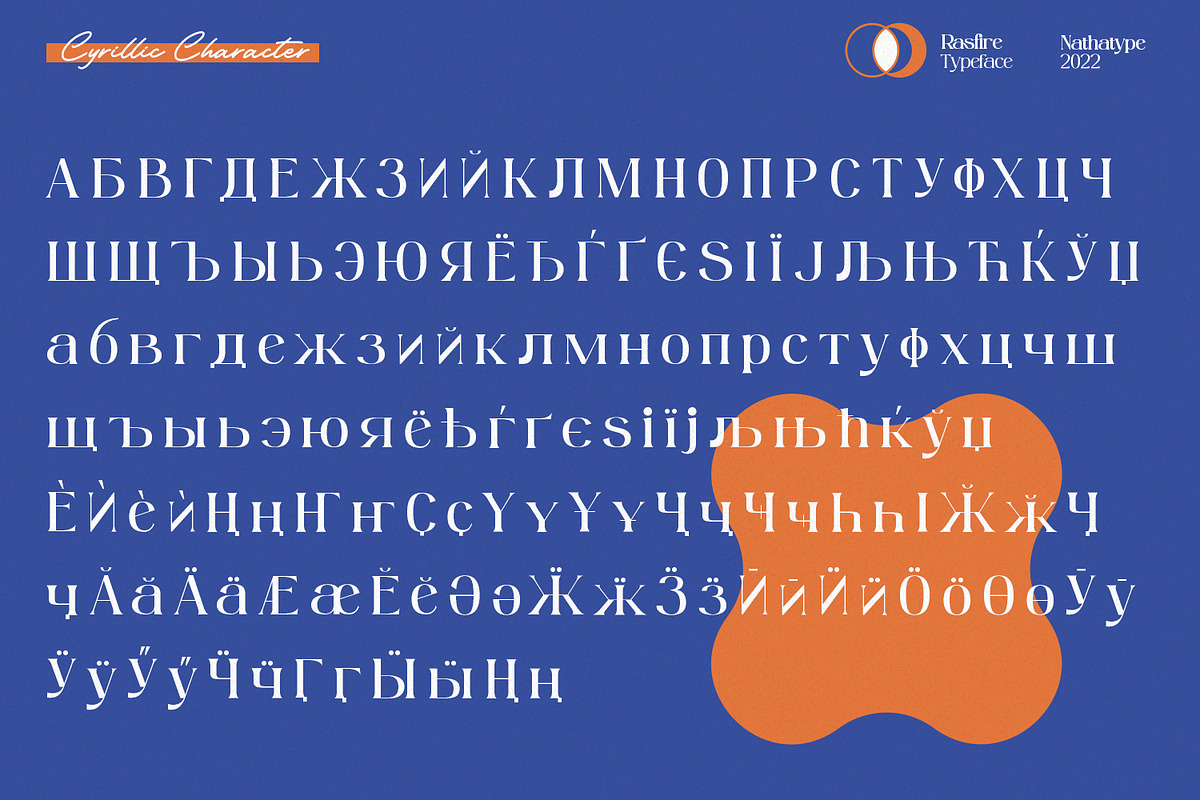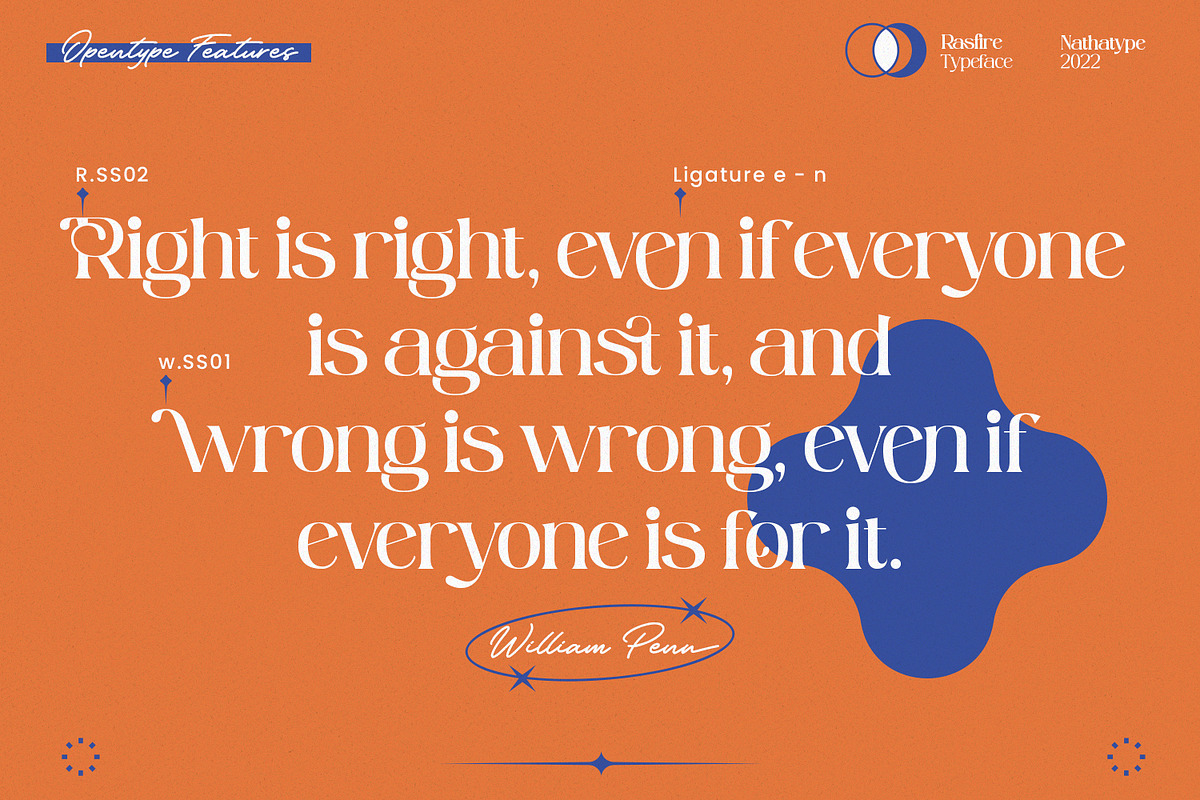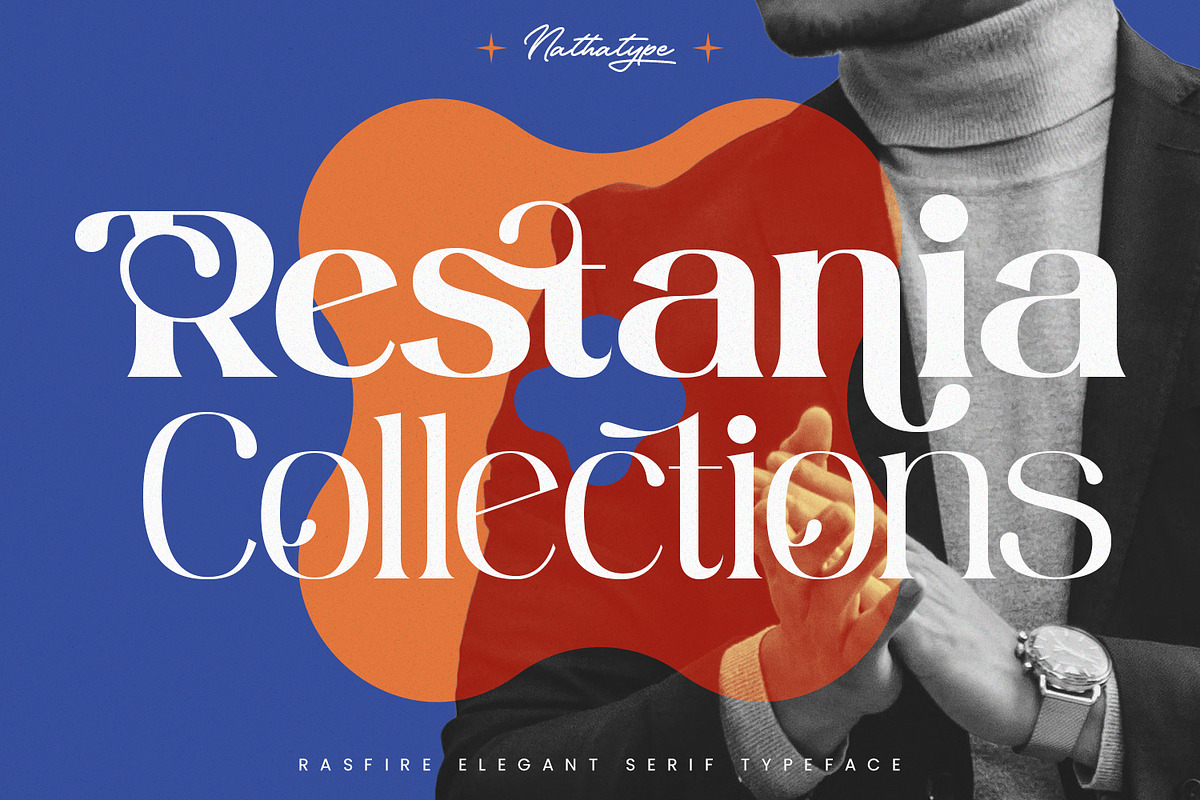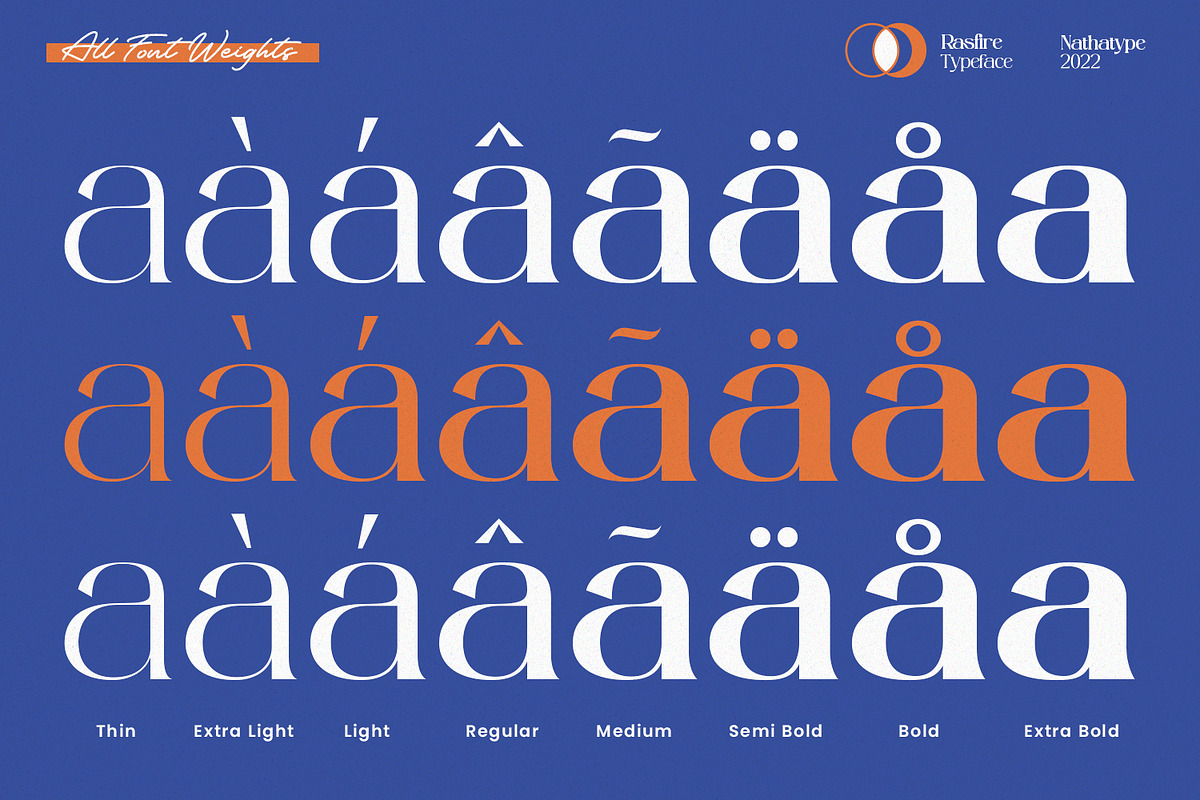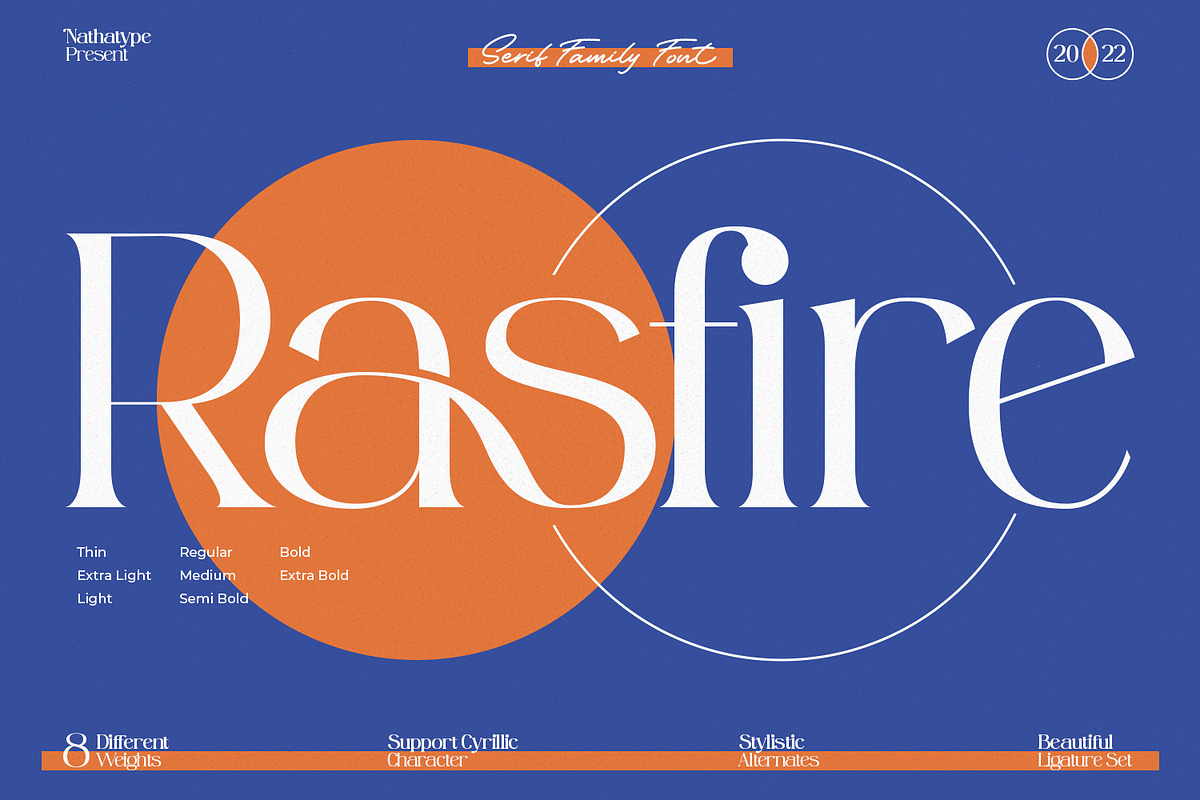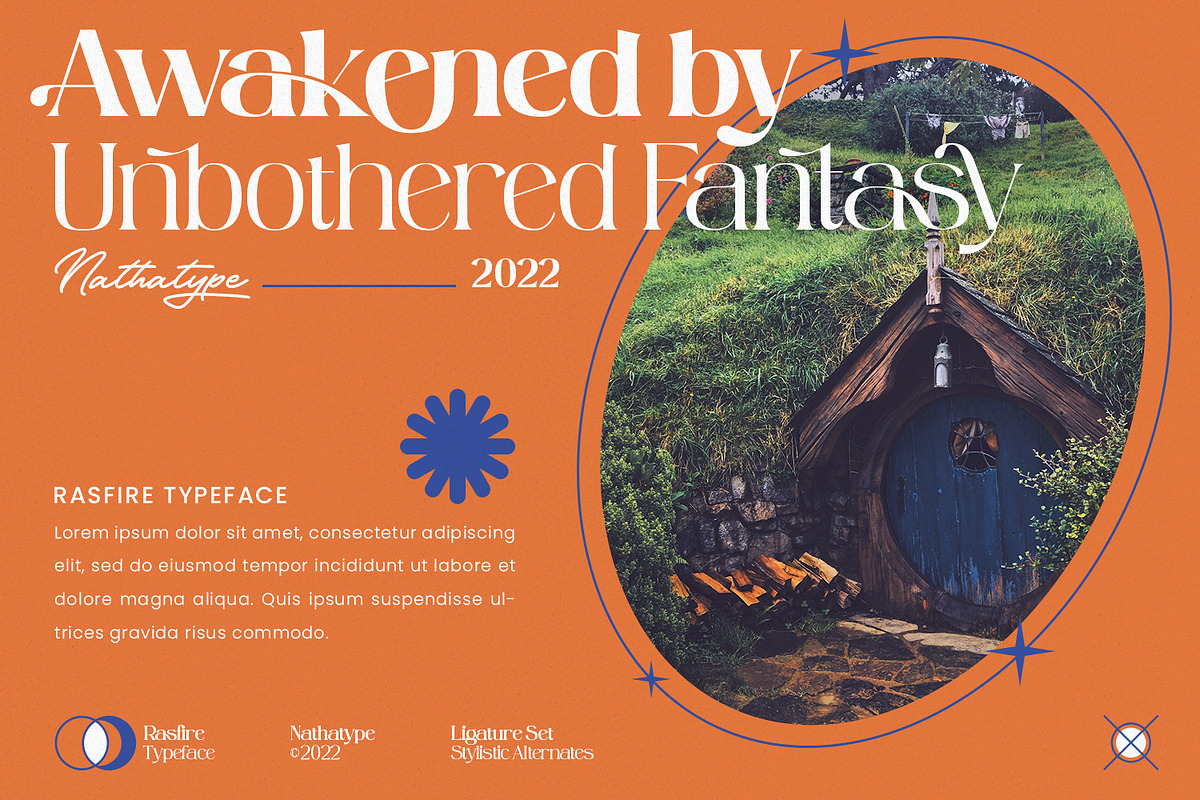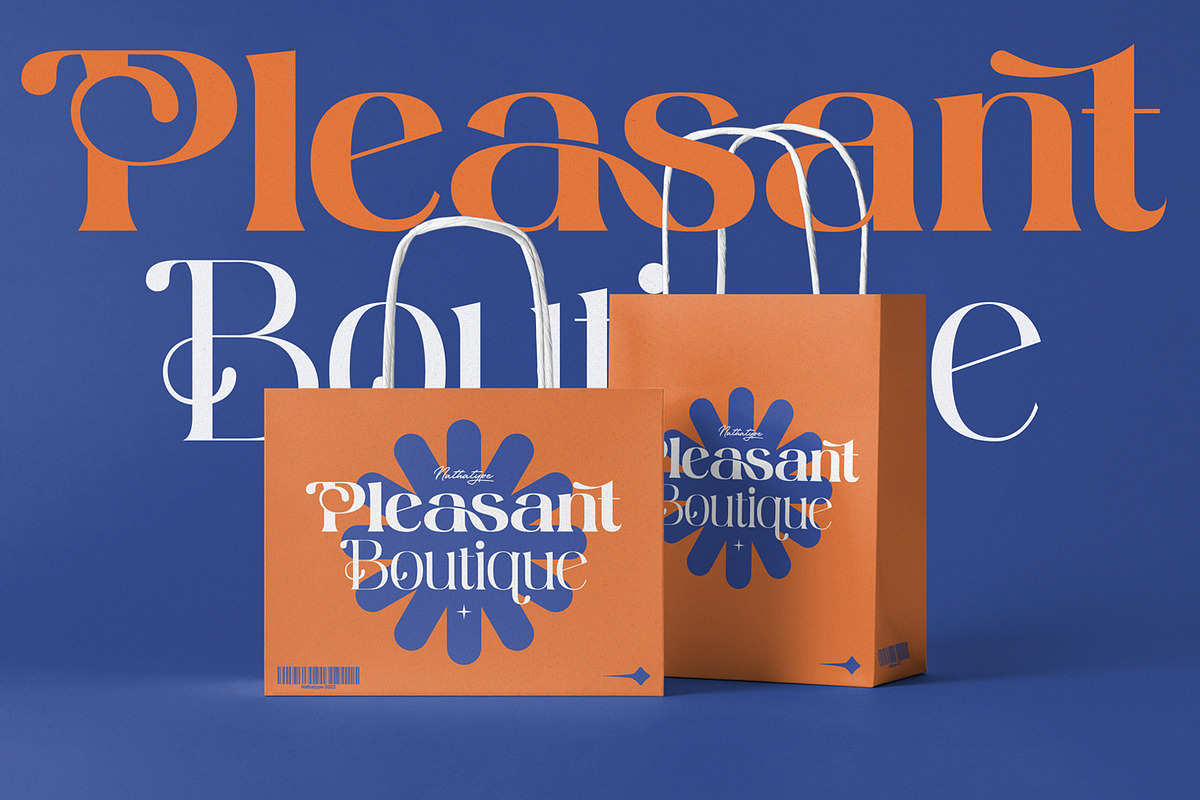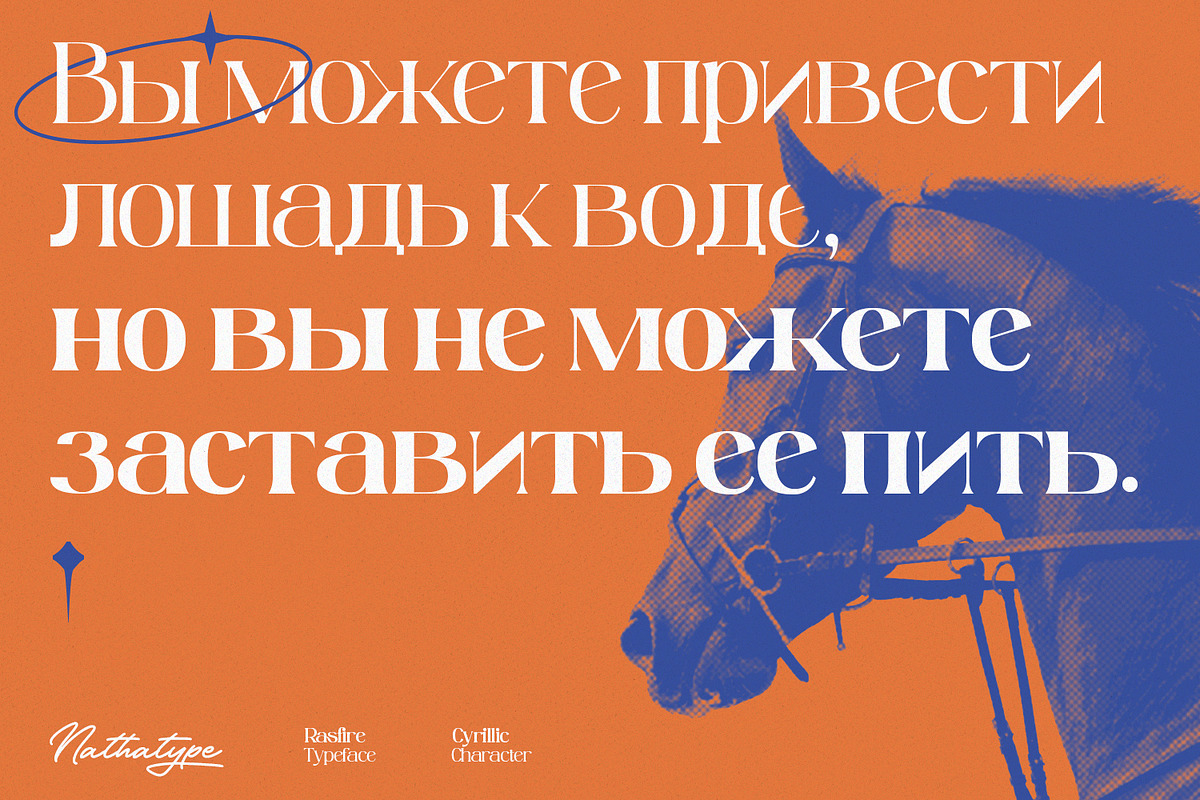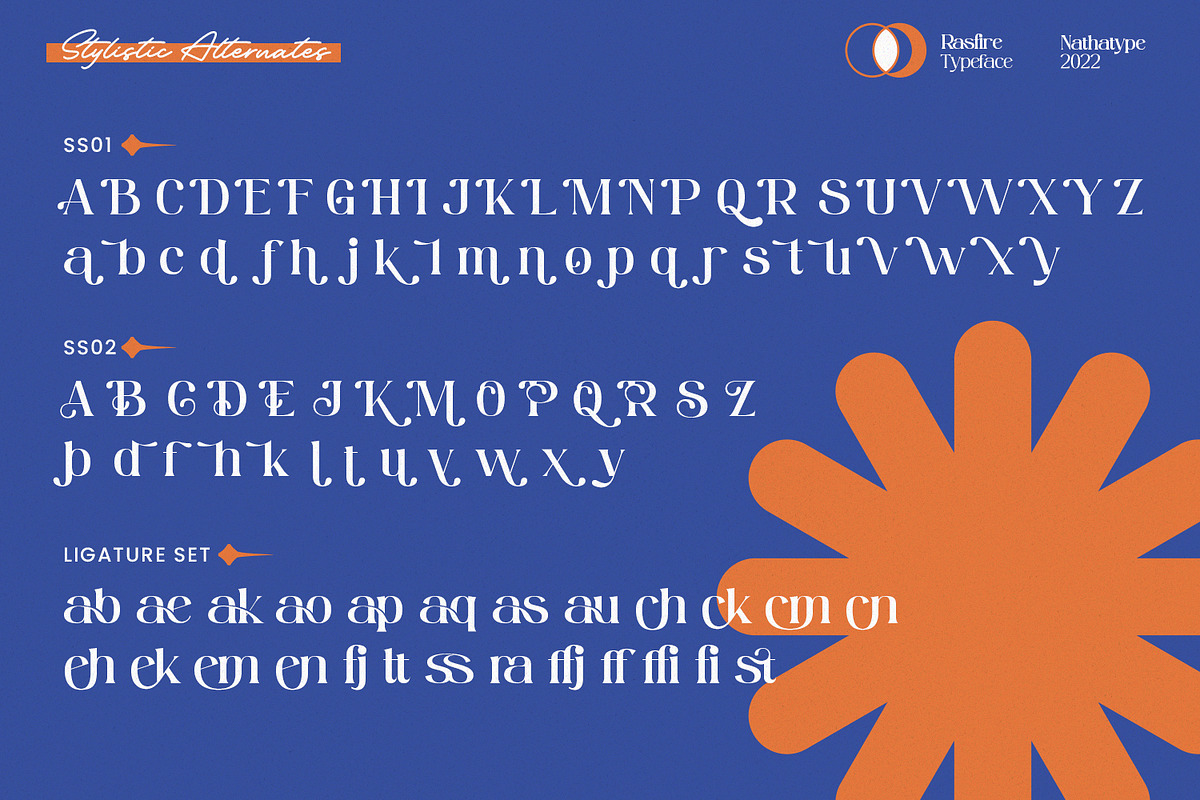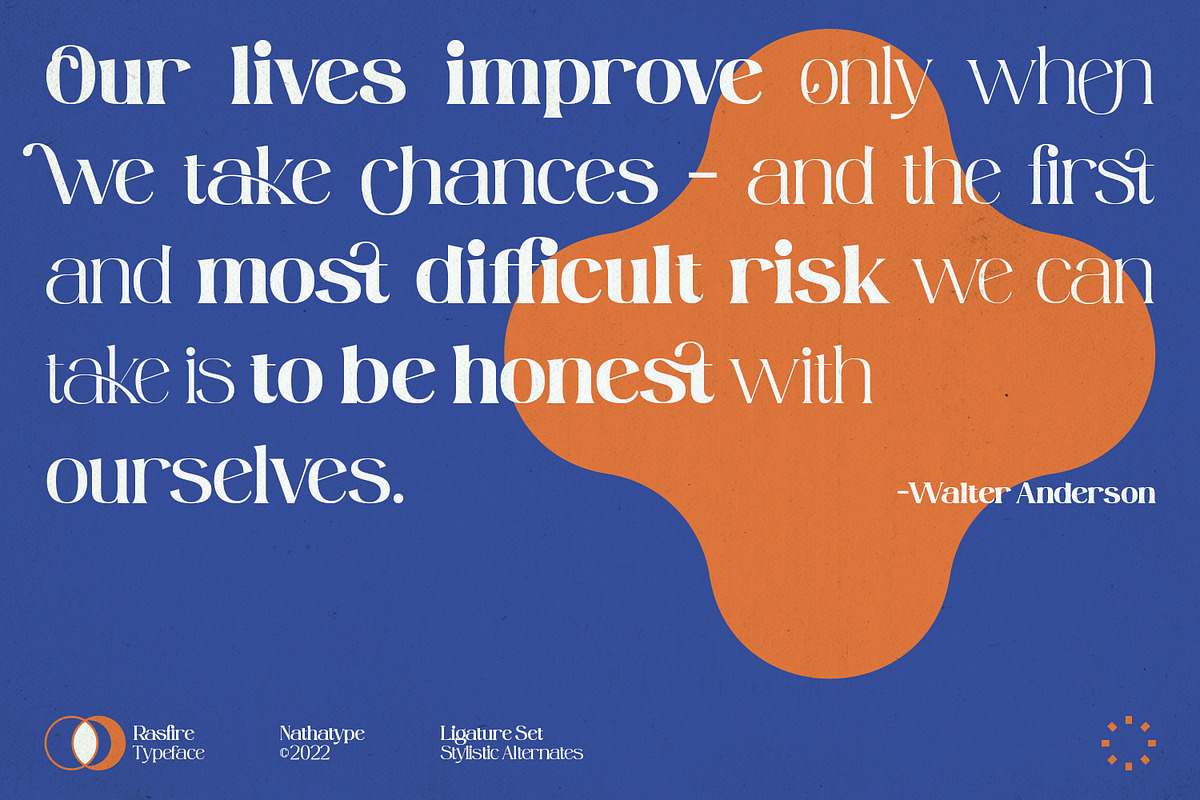
Rasfire
Do you need versatile font for your design?
Meet Rasfire, a serif font family that makes your design project becomes a delightful experience. Everything you need is already here. It generates simple and modern vibes. What's particularly nice about this font is how it works equally good in header or smaller text. With 8 different styles to this font family, ranging from thin to extra bold, you have variety of ways, you can put this simply-styled serif to use. It is also has more fascinating features that helps you maximize your design.
- Rasfire Thin
- Rasfire Extra light
- Rasfire Light
- Rasfire Regular
- Rasfire Medium
- Rasfire Semi Bold
- Rasfire Bold
- Rasfire Extra Bold
It can be used for many design projects, such as poster, logo, book cover, branding, heading, printed product, merchandise, quotes, social media campaign, etc. Learn more about how to use it by seeing the font preview.